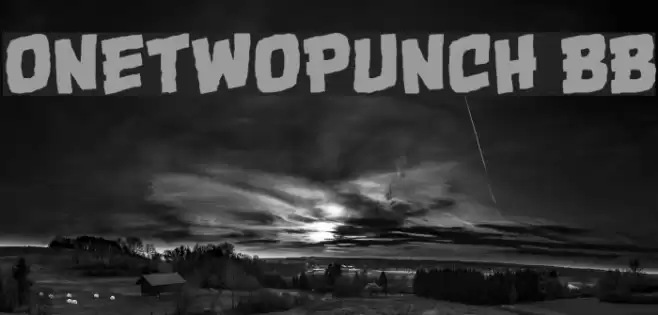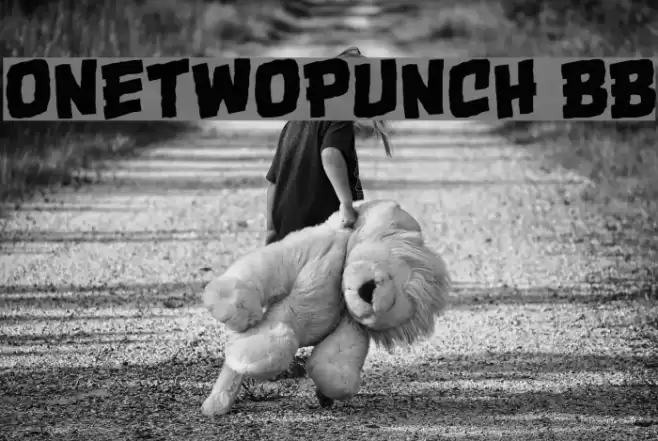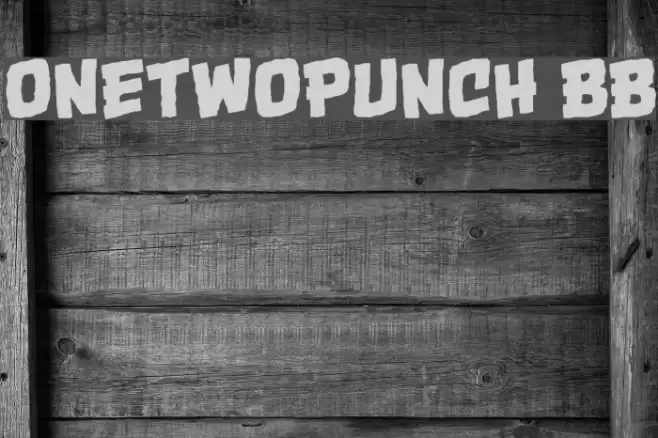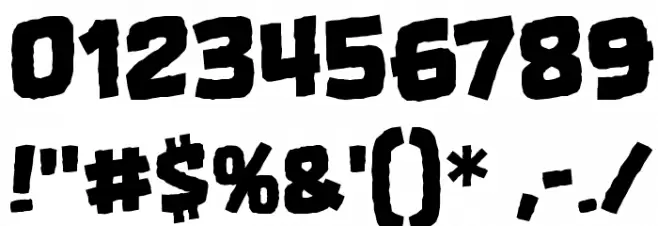
OneTwoPunch BB Font
OneTwoPunch BB Description
This font features a bold and dynamic style with a strong presence. The characters are heavily weighted, giving them a powerful and impactful appearance. The edges are slightly rough and irregular, adding a sense of energy and movement. This style is reminiscent of comic book lettering, with a playful yet assertive tone. The font maintains a consistent thickness throughout, contributing to its bold look. The spacing between characters is tight, enhancing the compact and robust feel. Overall, this font exudes a sense of action and excitement, making it ideal for attention-grabbing designs.
A bold, dynamic font with a comic book style and energetic feel from Uncategorized fonts.
- Proposed Projects: Ideal for comic books, posters, video game graphics, and any project needing a bold, energetic typeface.
- Character Spacing: Tight